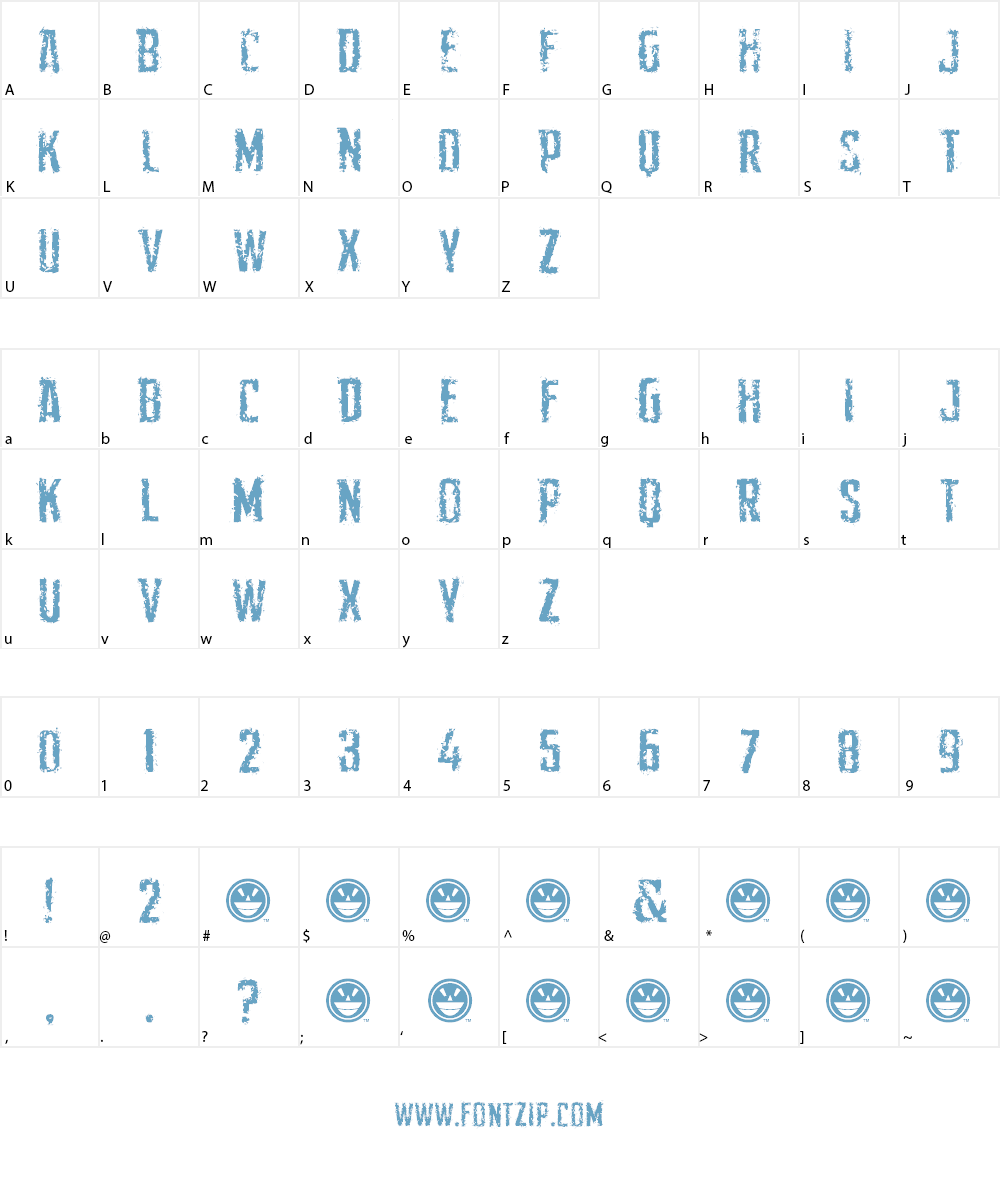
Demon Sker by Michael Gene Adkins
Ready for some fanatical distressing of the narrows? Demon Sker takes your stress to entirely new depths. Down, down, down, goes the rigid structure of the letterforms. All that remains are the scogs of all that was clean and straight. The filth stays behind. Demon Sker is the result.